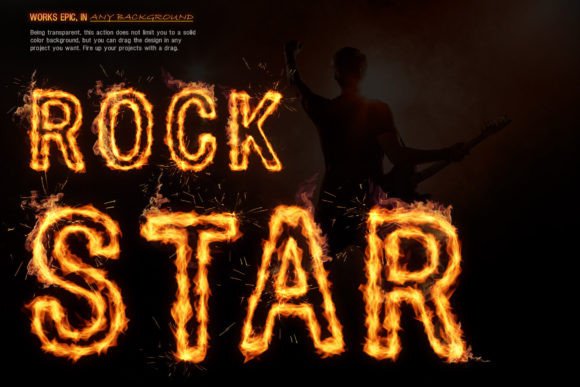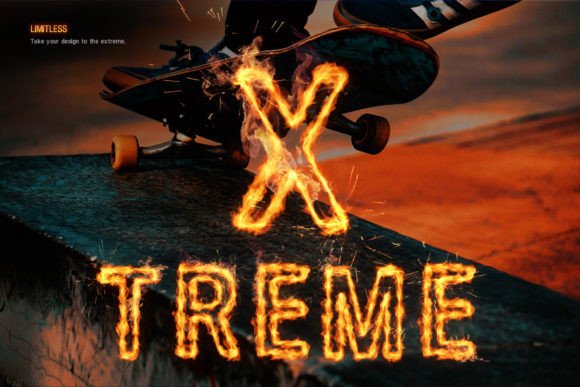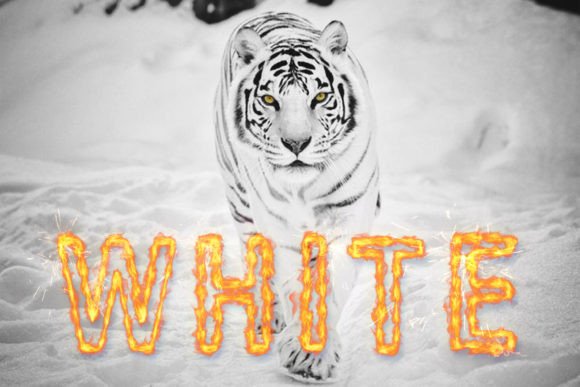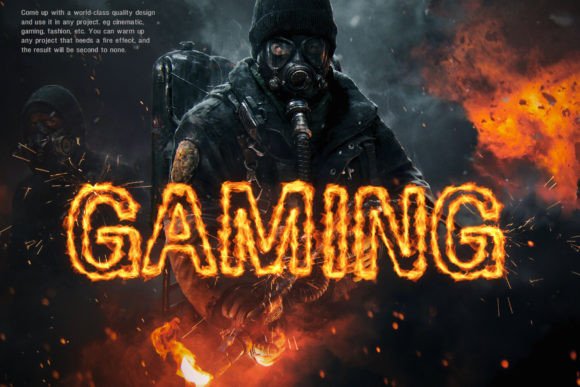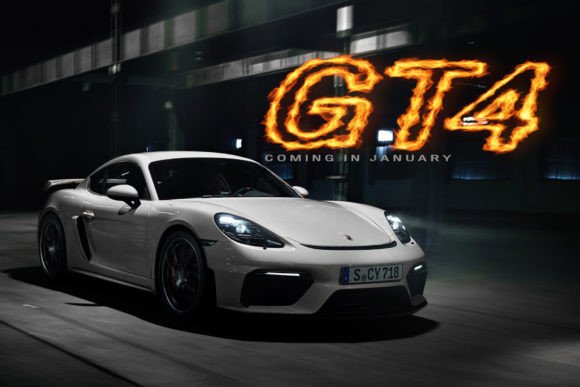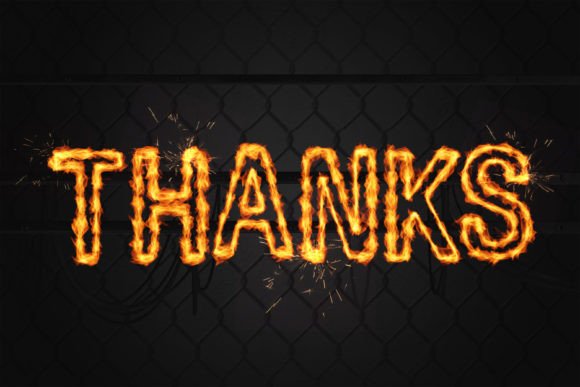
Unleash Your Creativity with Fire Font: A Masterpiece of Typography
Fire is an incredibly unique font. Masterfully designed to become a true favorite, this font has the potential to bring each of your creative ideas to the highest level! In the world of typography, fonts play a crucial role in conveying messages, evoking emotions, and adding personality to designs. Among the numerous fonts available, Fire Font stands out for its distinctiveness and versatility. In this article, we’ll dive into the world of Fire Font, exploring its features, benefits, and applications, making it a must-have for designers and crafters.
The Birth of Fire Font
Fire Font is a meticulously crafted typeface, designed to ignite creativity and passion in designers and crafters. Its origins may be shrouded in mystery, but its impact is undeniable. This font has been engineered to be highly legible, yet attention-grabbing, making it perfect for a wide range of applications, from digital media to print materials.
Unique Features of Fire Font
- Flame-Inspired Design: Fire Font’s design is inspired by the fiery elements, featuring bold, dynamic, and flowing lines that evoke the feeling of warmth and energy.
- Versatility: This font is incredibly versatile, suitable for various design projects, including logos, titles, headings, and more.
- Legibility: Despite its unique design, Fire Font maintains high legibility, ensuring that your message is conveyed clearly and effectively.
- Customizability: Fire Font comes with a range of variations, allowing designers to experiment with different styles and weights to match their creative vision.
Benefits of Using Fire Font
So, why should designers and crafters choose Fire Font for their projects? Here are some compelling benefits:
- Adds Personality: Fire Font injects personality into your designs, setting them apart from the ordinary and making them more engaging.
- Evokes Emotions: The font’s fiery design evokes emotions, creating a deeper connection with your audience and leaving a lasting impression.
- Enhances Creativity: With Fire Font, designers can explore new creative avenues, experimenting with bold and innovative typography.
- Time-Saving: The font’s versatility and customizability save designers time, as they can easily adapt it to various design projects.
Applications of Fire Font
Fire Font’s adaptability makes it suitable for a wide range of applications, including:
- Logo Design: Create a bold and memorable logo that stands out from the competition.
- Digital Media: Use Fire Font in social media graphics, blog posts, and website headers to add a touch of personality.
- Print Materials: Apply Fire Font to brochures, posters, and business cards to make a lasting impression.
- Crafting: Incorporate Fire Font into your crafting projects, such as handmade cards, scrapbooking, and DIY decorations.
Tips for Using Fire Font Effectively
To get the most out of Fire Font, consider the following tips:
- Experiment with Colors: Fire Font looks stunning in bold, vibrant colors that match its fiery design.
- Mix and Match: Combine Fire Font with other fonts to create a unique typography style.
- Pay Attention to Spacing: Adjust the spacing and kerning to ensure optimal legibility and visual appeal.
In conclusion, Fire Font is a game-changer for designers and crafters seeking to add a spark to their creative projects. Its unique design, versatility, and legibility make it an excellent choice for a wide range of applications. By incorporating Fire Font into your design toolkit, you’ll unlock new creative possibilities and take your designs to the next level. So, ignite your creativity with Fire Font and watch your designs come alive!